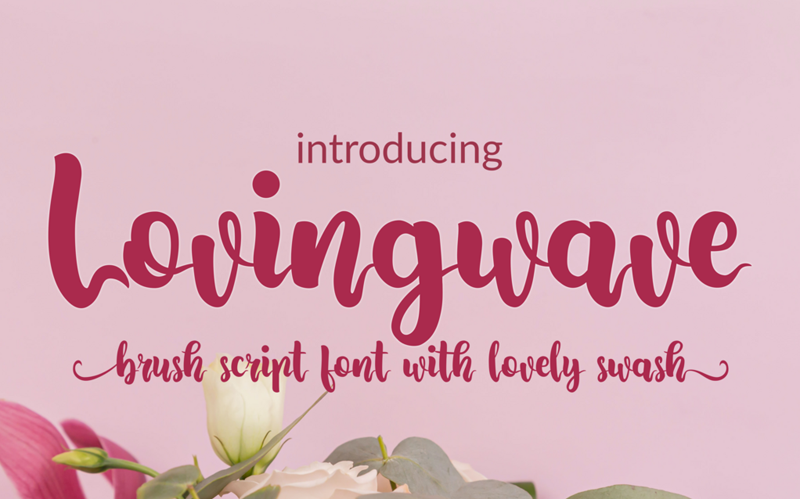
Font name: | Lovingwave |
Author: | Onne Hermawan |
Lovingwave is a sweet and thick lettered script font. This font is neatly crafted and highly detailed. Whatever the topic, this font will be a wonderful asset to your font library, as it has the potential to enhance any creation. NOTES: By installing or using this font, you are agree to the Product Usage Agreement: 1. This font is only for PERSONAL USE. NO COMMERCIAL ARE USE ALLOWED. 2. You are requires a license for PROMOTIONAL or COMMERCIAL use. below the link for the full version and commercial use : https://www.creativefabrica.com/product/lovingwave/ref/185557/ To donate simply click my donation button above or follow this link : https://paypal.me/hermaone1 any donation are very appreciated. Thank you ==== INDONESIA: Dengan meng-install font ini, anda dianggap mengerti dan menyetujui semua syarat dan ketentuan penggunaan dibawah ini: 1. Font ini hanya dapat digunakan untuk keperluan "Personal Use", atau untuk keperluan yang sifatnya tidak "komersil", atau tidak menghasilkan profit atau keuntungan dari hasil memanfaatkan/menggunakan font ini. 2. DILARANG KERAS menggunakan atau memanfaatkan font ini untuk keperluan Komersil, baik itu untuk Iklan, Promosi, TV, Film, Video, Motion Graphics, Youtube, atau untuk Kemasan Produk (baik fisik maupun digital) atau media apapun dengan tujuan menghasilkan profit/keuntungan. 3. Menggunakan font ini untuk kepentingan komersil apapun bentuknya TANPA IZIN sama sekali tidak dibenarkan, dan anda bisa dikenakan biaya EXTENDED LICENSE atau 100 kali harga dari Lisensi Standard. More... |